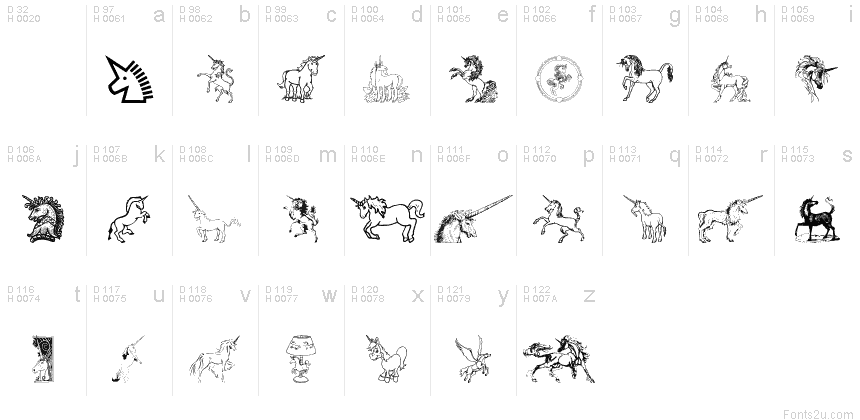
Gail's Unicorn
Gail's Unicorn font by Lime 2000 is a free fantastic dingbat typeface filled with unicorn silhouettes, line drawings, and whimsical clip-art poses. From a chunky, angular unicorn head to finely inked, storybook-style steeds, each glyph feels like a tiny illustration you can drop straight into your layout without hunting for separate graphics. The mix of bold, black shapes and delicate, scratchy line work gives you options for both loud accents and subtle details.
Using Gail's Unicorn, you can quickly dress up kids’ party invitations, fantasy book covers, sticker sheets, classroom worksheets, website badges, and craft projects. This free font shines when you set the icons large, almost like logos, and pair them with a clean sans serif for the text so the unicorn artwork stays center stage.